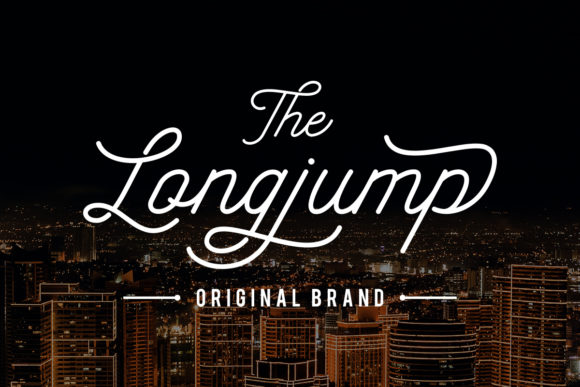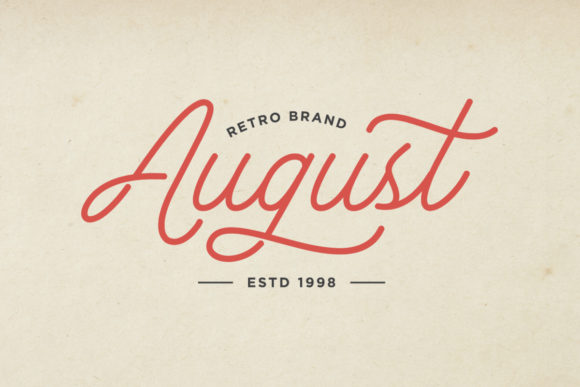
Setting Fires Font
db-ku.com - Script & Handwritten -- The Setting Fires is a beautiful monoline typeface. This script font has a vintage style and is perfect for branding projects, logos, wedding designs, social media posts, advertisements, product packaging’s, product designs, labels, and much more!